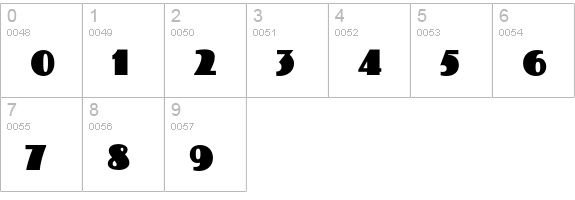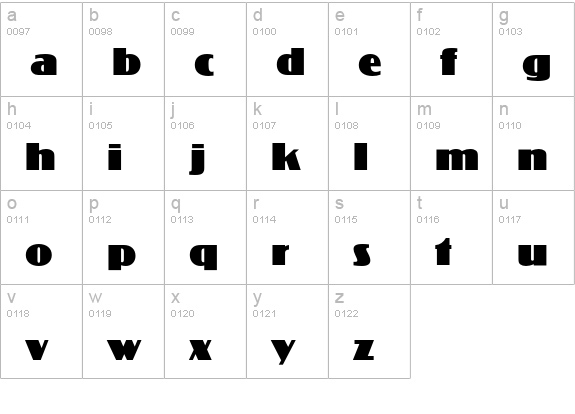
KolossEF Font Details
KolossEF font is a stunning display typeface that exudes elegance and sophistication. With its bold and distinctive letterforms, this font is perfect for making a statement in your designs. Whether you're creating logos, posters, or branding materials, KolossEF will definitely grab attention and leave a lasting impression. What sets KolossEF font apart is not only its striking appearance but also the fact that it is available for free. That's right, you can download this amazing font at FontsMarket.com without having to spend a dime. So go ahead and elevate your projects with KolossEF font today!